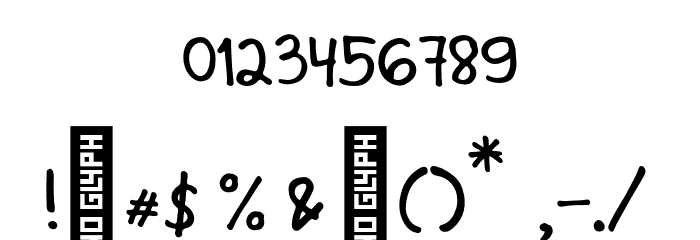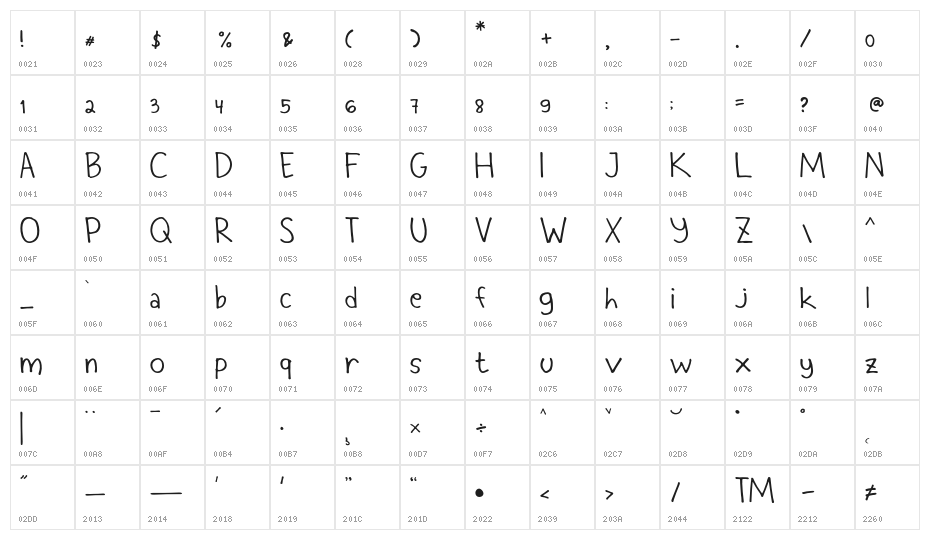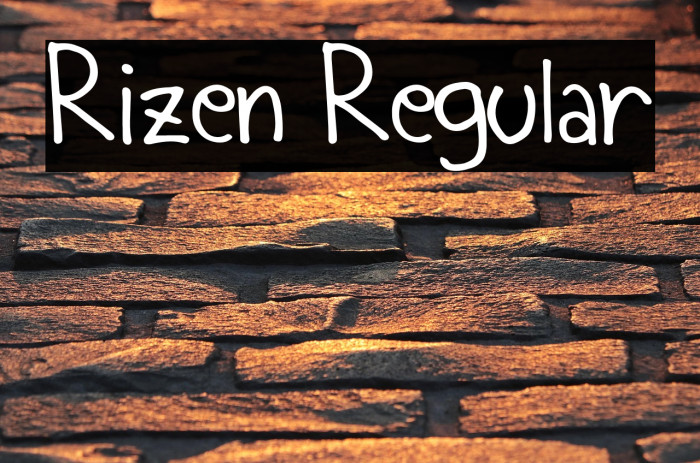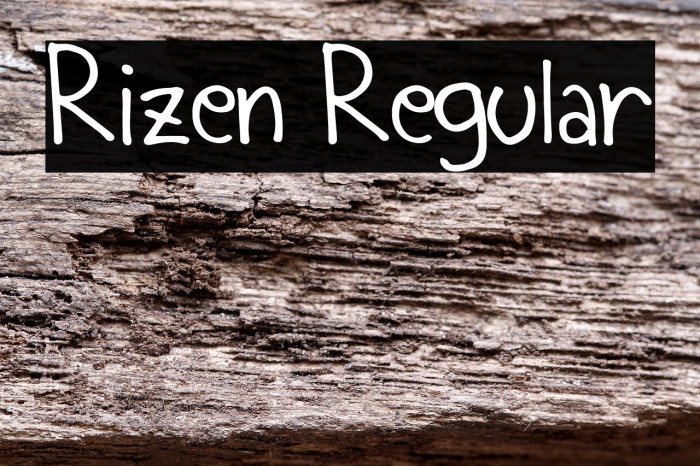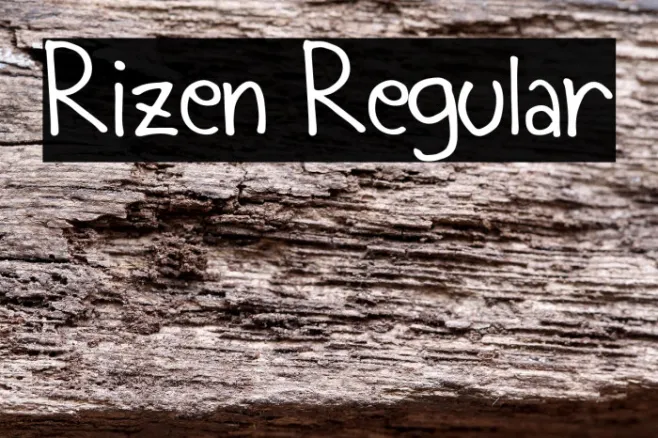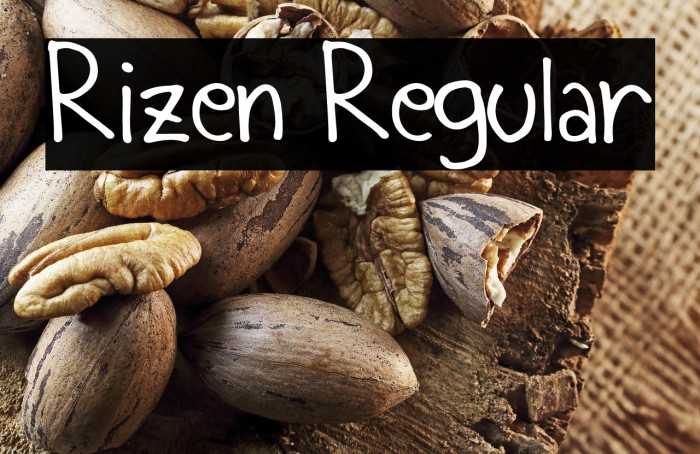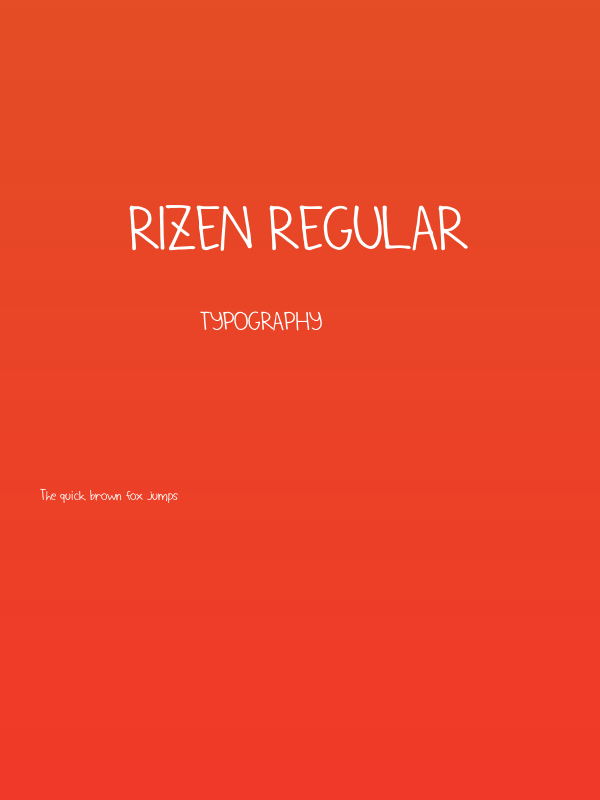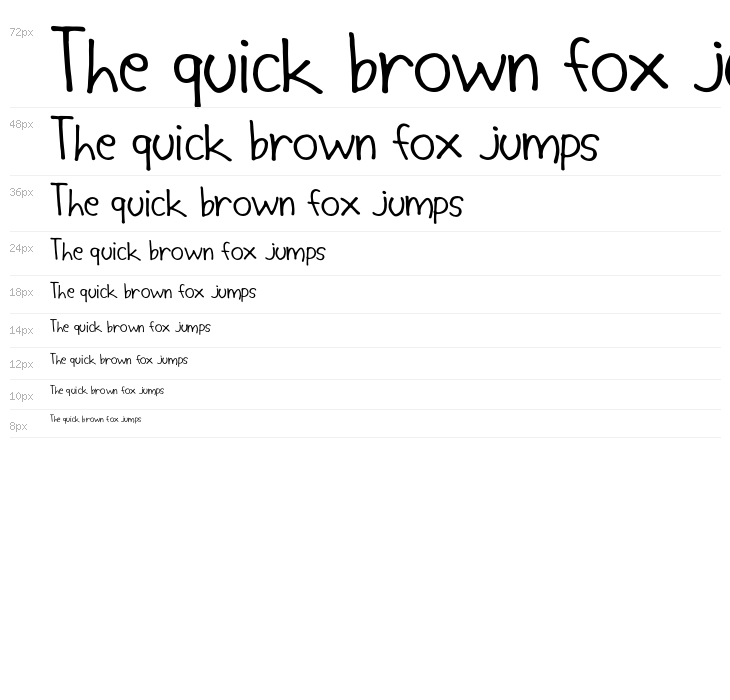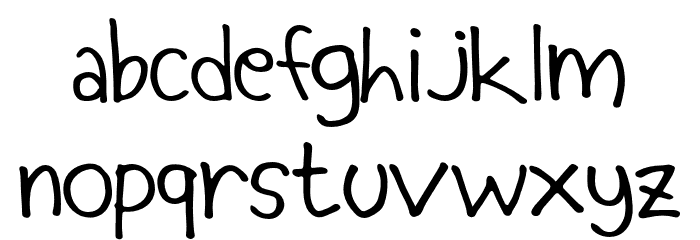
Rizen Regular Font
Rizen Regular Description
This font features a playful and informal style with a handwritten appearance. The characters are slightly irregular, giving a casual and friendly vibe. The strokes are consistent in weight, providing a uniform look across all letters and numbers. The rounded edges and slight slant add to its approachable and relaxed feel. This font is versatile, suitable for projects that require a personal touch or a less formal tone. The special characters maintain the same playful style, ensuring cohesion throughout any text.
| Use Case | Headlines, Informal text, Branding |
| Proposed Projects | Ideal for greeting cards, children's books, casual branding, and social media graphics. |